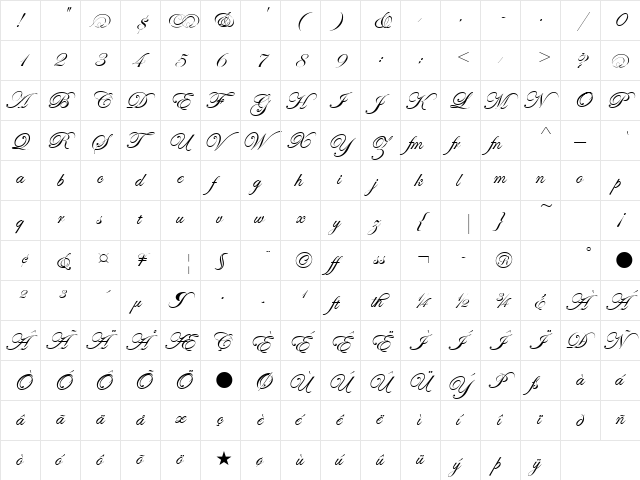
Edwardian Script Itc Alternate Regular
Design Context for Edwardian Script Itc Alternate Typeface
Edwardian Script Itc Alternate brings a calligraphic fluidity to the page — its connecting strokes and expressive curves give it an unmistakably human quality.
Font Pairing: Combine Edwardian Script Itc Alternate with a simple geometric sans for maximum contrast — the tension between flowing curves and clean structure is a classic typographic pairing.
Pro Tip: Pair Edwardian Script Itc Alternate with a clean sans-serif for supporting text. The contrast between fluid script and geometric structure creates an elegant typographic hierarchy.